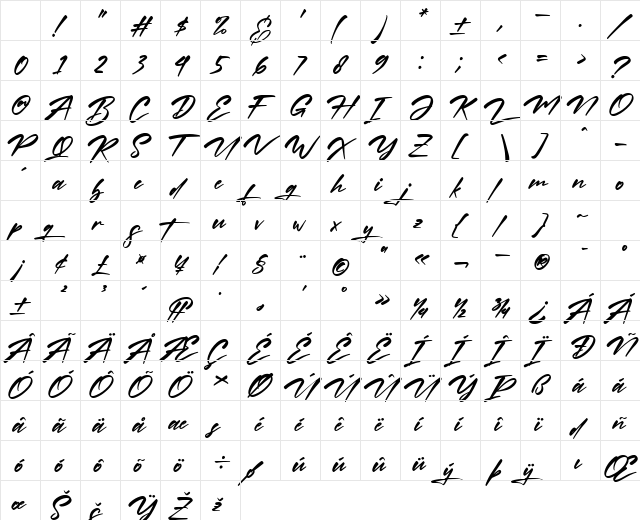
Miss Gymick is a composed and adaptable typeface that performs quietly and consistently across a wide range of design contexts. The slanted form adds forward momentum and visual energy.
Pro Tip: Use Miss Gymick for emphasis, pull quotes, and subheadings where its slanted energy can add rhythm to the layout.